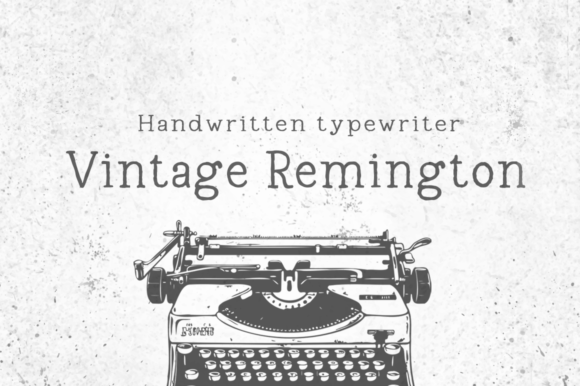
Introducing Vintage Remington Font, the epitome of creativity and edge for your projects! Crafted by the renowned Pentype Studio, this handwritten typewriter font will transport you back in time, adding a touch of nostalgia and uniqueness to your designs.
With Vintage Remington, every letter is meticulously stylized to resemble the charming imperfections of old typewriters. Its vintage essence effortlessly infuses a sense of authenticity into your creations, setting them apart from the crowd.
This display font is an exceptional choice for a wide range of projects. Whether you're working on a captivating magazine spread, designing a striking logo, curating a timeless newspaper layout, or seeking to embellish your quotes, Vintage Remington is your ultimate companion.
Immerse yourself in the world of Vintage Remington Font, where each character tells a story. The retro aesthetics and classic appeal of this font evoke emotions, making your audience connect with your message on a deeper level.
Unleash your creativity and watch as Vintage Remington breathes life into your project. Its versatility knows no bounds, allowing you to experiment and explore countless design possibilities.
Captivate your audience with the captivating charm of Vintage Remington Font. Its unique style will captivate their attention, leaving a lasting impression that sets you apart from the competition.
Embrace the power of Vintage Remington and unlock a world of endless possibilities. Elevate your designs, inspire your audience, and reignite your passion for creativity.